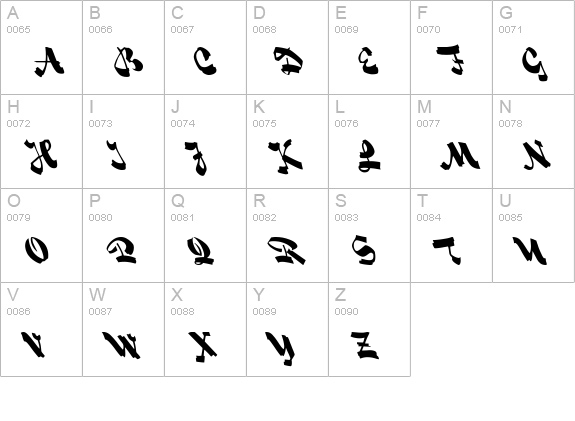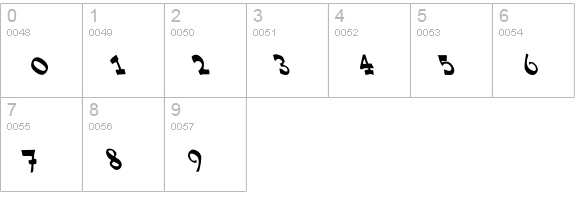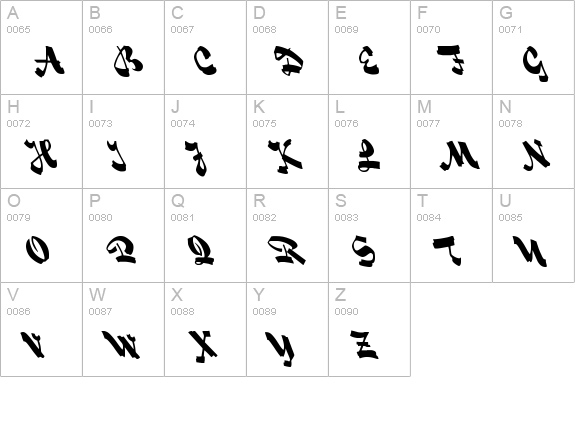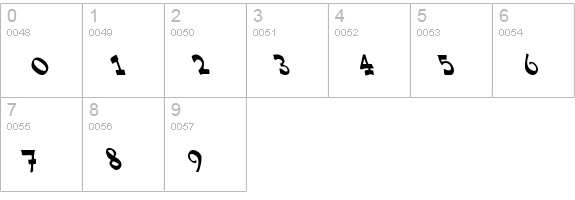
Fox Script Lefty is a beautifully crafted handwritten font that exudes elegance and charm. Its flowing and stylish characters make it perfect for adding a touch of sophistication to your projects. The unique left-handed design of this font gives it a distinctive and eye-catching appeal. Best of all, Fox Script Lefty is available for free download at FontsMarket.com. Whether you're working on invitations, logos, posters, or any other creative project, this font is sure to make a statement. Add a touch of creativity and flair to your designs with Fox Script Lefty today!